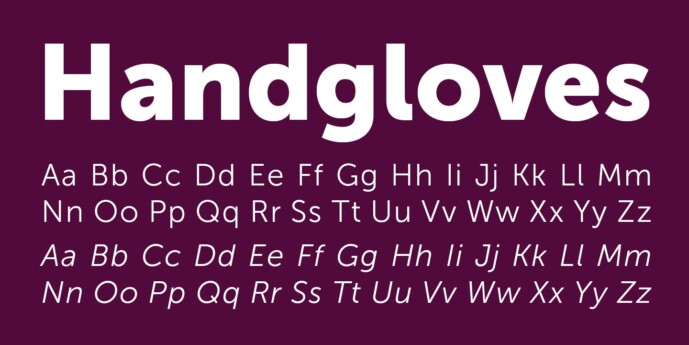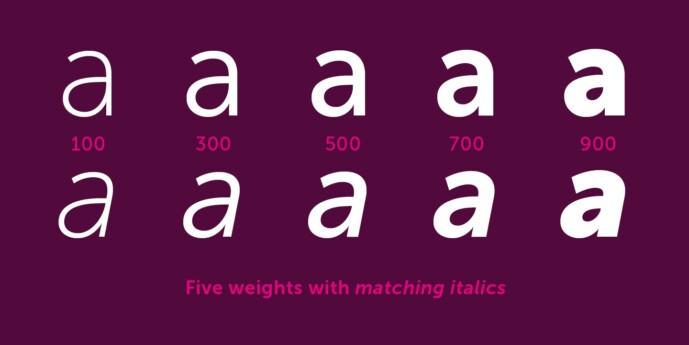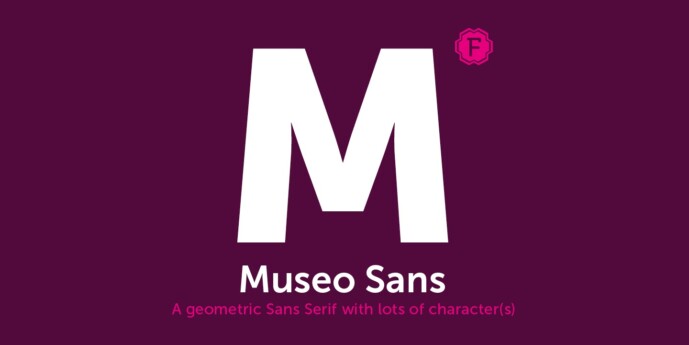
Museo Sans Font Family
Designer: exljbris
Museo Sans Font Family is a sturdy, low contrast, geometric, highly legible sans serif typeface very well suited for any display and text use. This OpenType font family offers also support for CE languages and even Esperanto. Besides ligatures, automatic fractions, proportional/tabular lining and old-style figures, numerators, denominators, superiors, and inferiors, Museo Sans also has a ‘case’ feature for case sensitive forms.